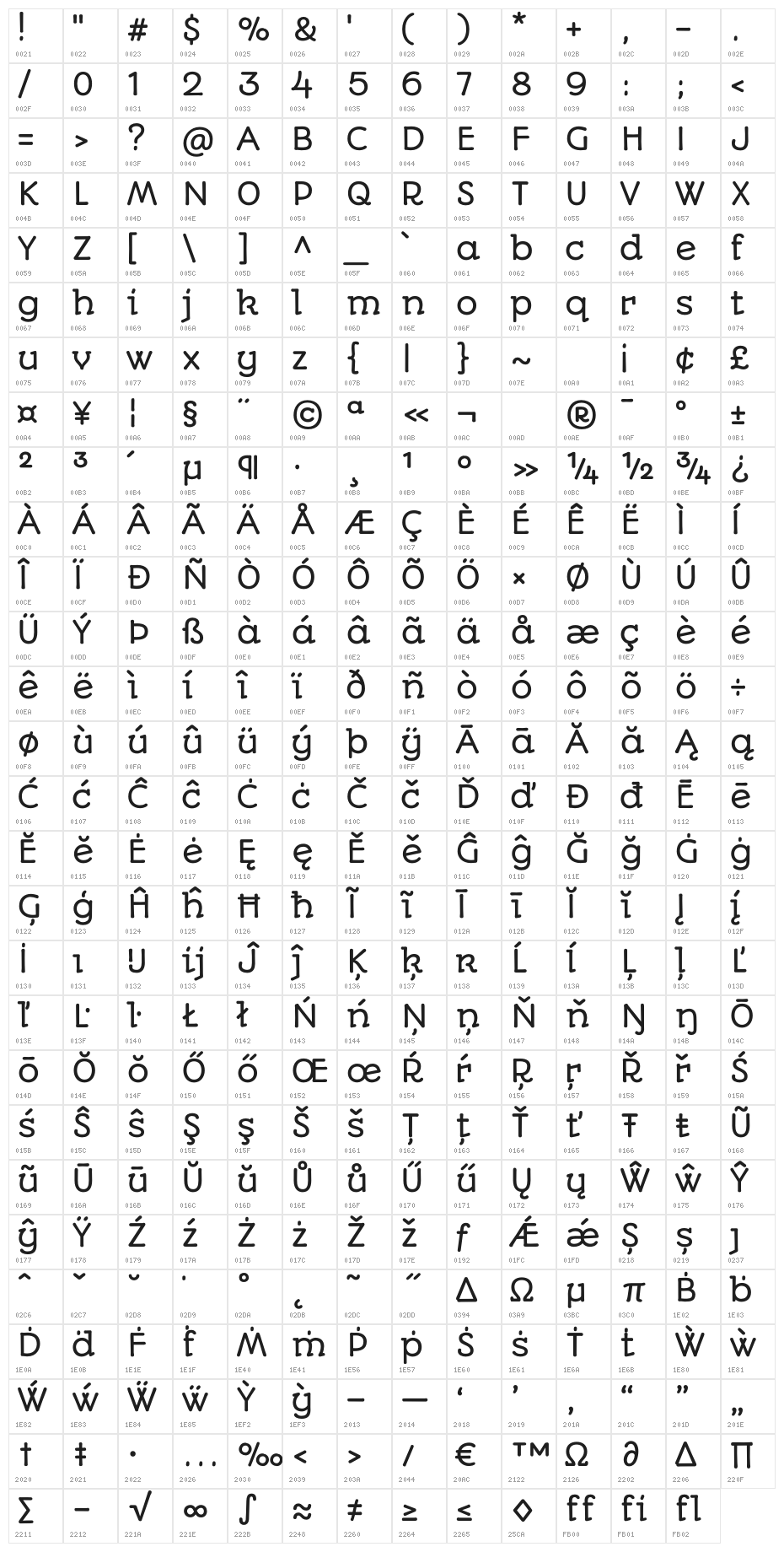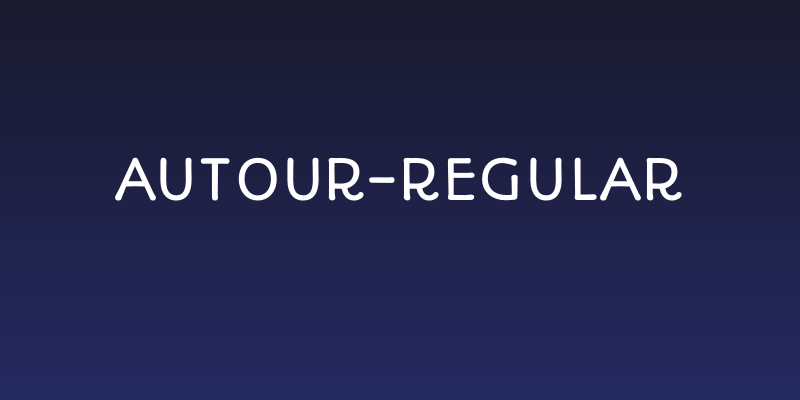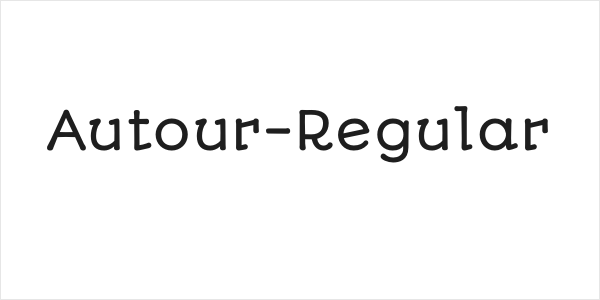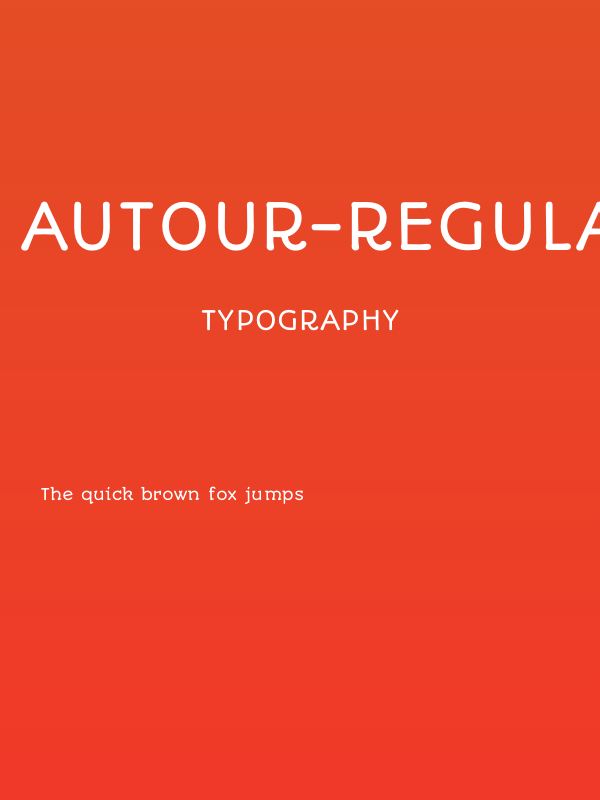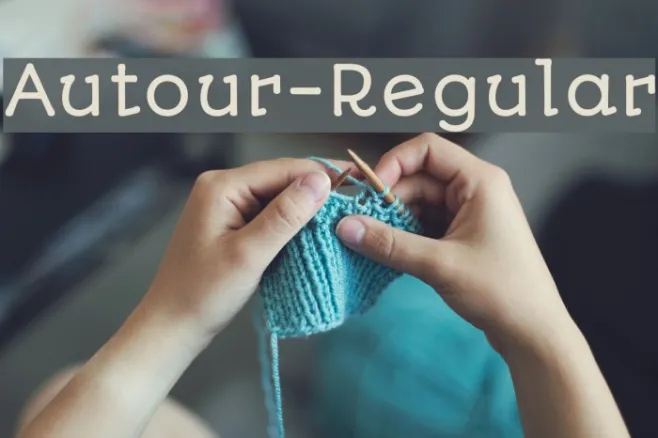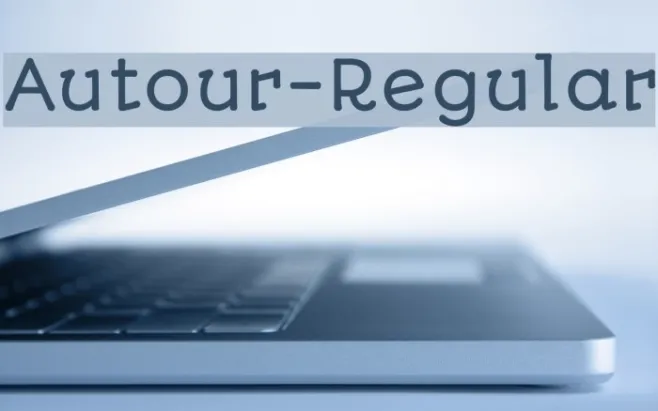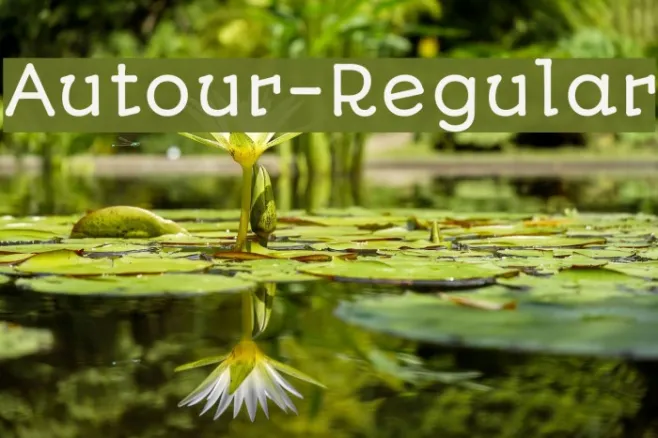
Autour-Regular Font
Autour-Regular Description
This font features a playful and rounded design, characterized by its smooth curves and friendly appearance. The letters have a consistent stroke width, giving it a uniform look. The uppercase letters are bold and prominent, while the lowercase letters maintain a whimsical style with slightly exaggerated curves. The numerals are clear and easy to read, matching the overall playful aesthetic. Special characters are well-integrated, maintaining the font's cohesive style. This font is versatile, suitable for both digital and print media, and can add a touch of fun to any project.
| Proposed Projects | Ideal for children's books, playful branding, casual invitations, and creative posters. |